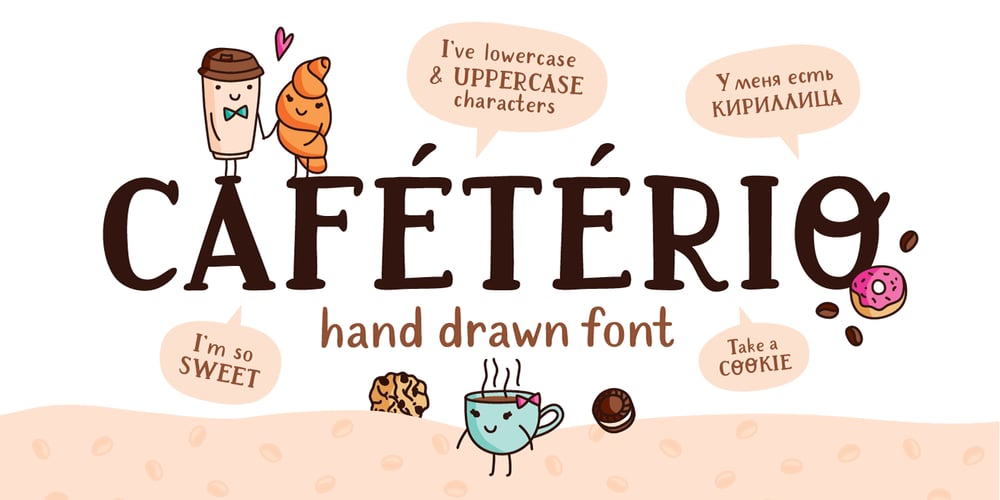
Cafeterio MS Font Family was designed by Marina Sozonova and published by Redcollegiya. Cafeterio MS contains 1 styles and family package options. Cafeterio is a hand drawn cute font which makes it great for any children’s design, be it a book cover, a t-shirt or a poster. Font includes latin and cyrillic characters, diacritics, numbers and punctuation.